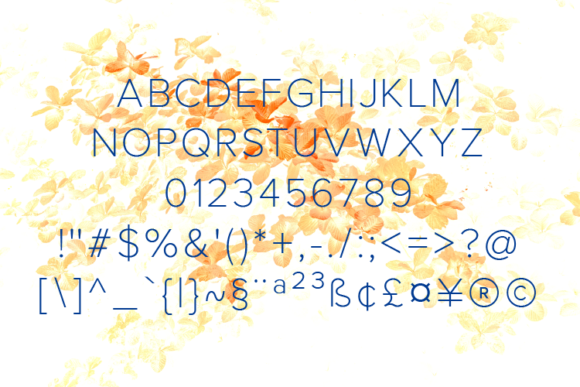
Gerkco Extra Light Font: Elevate Your Designs with a Touch of Modern Elegance
In the world of typography, fonts play a crucial role in defining the aesthetic and tone of any design project. Whether you’re a seasoned designer or a crafty DIY enthusiast, finding the right font can make all the difference. If you’re on the hunt for a clean, elegant, and modern sans serif font, look no further than Gerkco Extra Light. This versatile font is perfect for creating a wide range of projects, from cool logos and eye-catching social media posts to unique book covers and more.
The Characteristics of Gerkco Extra Light
Gerkco Extra Light is a sans serif font that exudes a sense of modernity and sophistication. Its clean lines, elegant curves, and balanced proportions make it an excellent choice for designers who want to add a touch of refinement to their work. The font’s extra light weight gives it an airy and open feel, making it perfect for use in a variety of contexts, from digital media to print materials.
Why Choose Gerkco Extra Light?
So, what sets Gerkco Extra Light apart from other fonts in its category? Here are just a few reasons why designers and crafters alike are falling in love with this beautiful font:
- Modern Feel: Gerkco Extra Light has a distinctly modern feel that will instantly elevate your designs. Its sleek lines and minimalist aesthetic make it perfect for projects that require a contemporary look and feel.
- Versatility: This font is incredibly versatile, making it suitable for use in a wide range of projects, from logos and branding materials to social media posts, book covers, and more.
- Elegance: Gerkco Extra Light is an elegant font that adds a touch of sophistication to any design. Its refined curves and balanced proportions make it perfect for projects that require a high level of professionalism.
- Readability: One of the key benefits of Gerkco Extra Light is its excellent readability. The font’s clean lines and simple shapes make it easy to read, even at small sizes.
Using Gerkco Extra Light in Your Designs
So, how can you use Gerkco Extra Light to enhance your designs? Here are a few ideas to get you started:
- Logos and Branding: Gerkco Extra Light is an excellent choice for logos and branding materials. Its modern feel and elegant aesthetic make it perfect for businesses that want to appear sleek and sophisticated.
- Social Media Posts: Add a touch of elegance to your social media posts with Gerkco Extra Light. This font is perfect for creating eye-catching graphics that will help your content stand out.
- Book Covers: Gerkco Extra Light is a great choice for book covers, particularly for fiction and non-fiction books that require a modern and sophisticated look.
- Digital Media: This font is also perfect for use in digital media, including websites, blogs, and email marketing campaigns.
Tips for Getting the Most Out of Gerkco Extra Light
To get the most out of Gerkco Extra Light, here are a few tips to keep in mind:
- Experiment with Font Sizes: Gerkco Extra Light looks great at a range of font sizes, from small and delicate to large and bold. Experiment with different sizes to find the one that works best for your project.
- Pair it with Other Fonts: Gerkco Extra Light pairs well with a range of other fonts, including bold sans serifs and elegant script fonts. Experiment with different pairings to find the one that works best for your project.
- Use it Consistently: To get the most out of Gerkco Extra Light, use it consistently throughout your design. This will help to create a cohesive look and feel that will elevate your project to the next level.
In conclusion, Gerkco Extra Light is a beautiful and versatile font that is perfect for designers and crafters who want to add a touch of modern elegance to their work. With its clean lines, elegant curves, and balanced proportions, this font is sure to become a staple in your design toolkit. So why not give it a try and see the difference it can make in your designs?